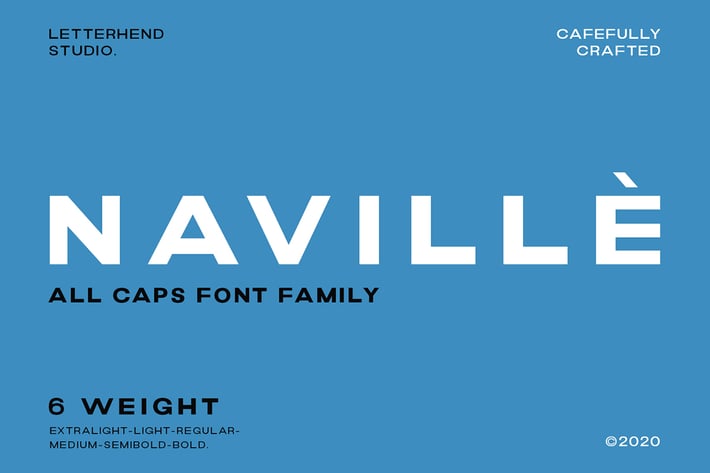
Naville Family - 6 Fonts
Introducing, Naville Sans, the all caps font family. This family has 6 weights - extra light, light, reguler, medium, semibold and bold. The clean and simplicity look of the font suitable for wide range of graphic needs especially for headline, title, sign board, information board, billboard and for UI/UX design.
+ numbers and punctuation
+ Support for 17 different languages
+ contains 222 glyphs
+ Consist of 6 font weights